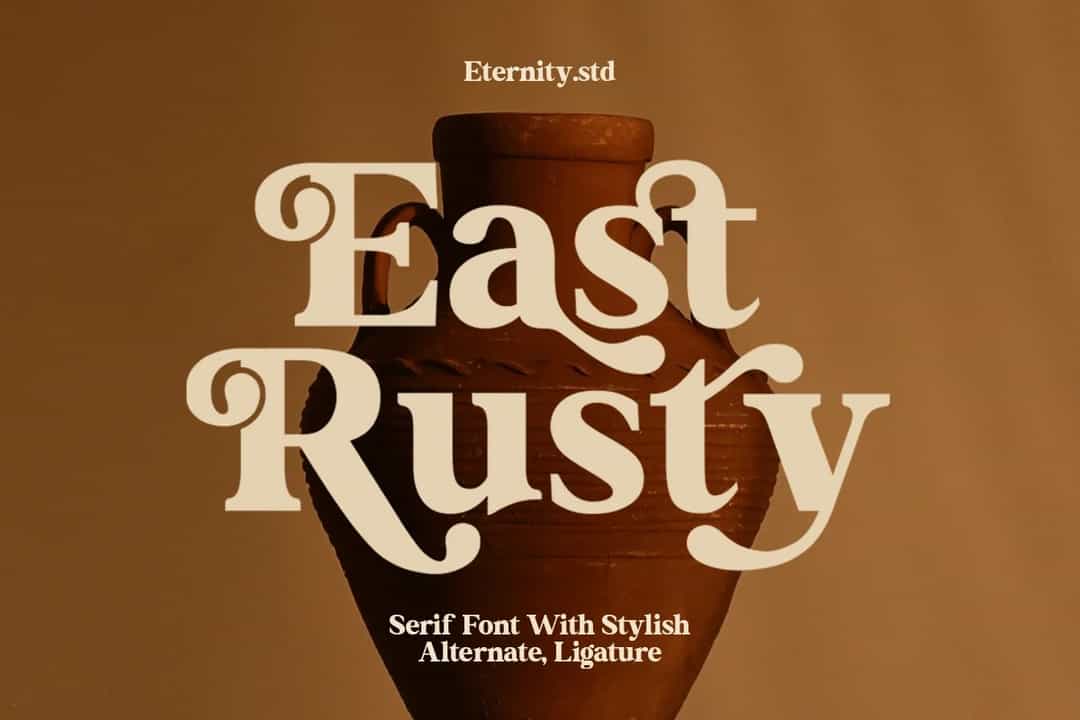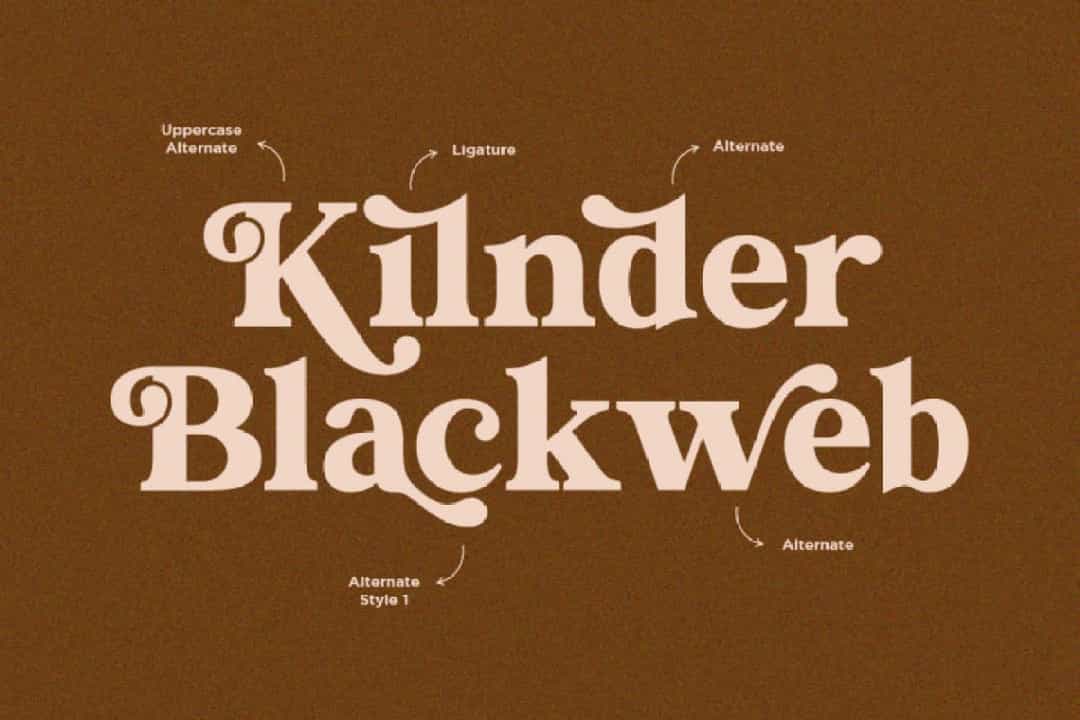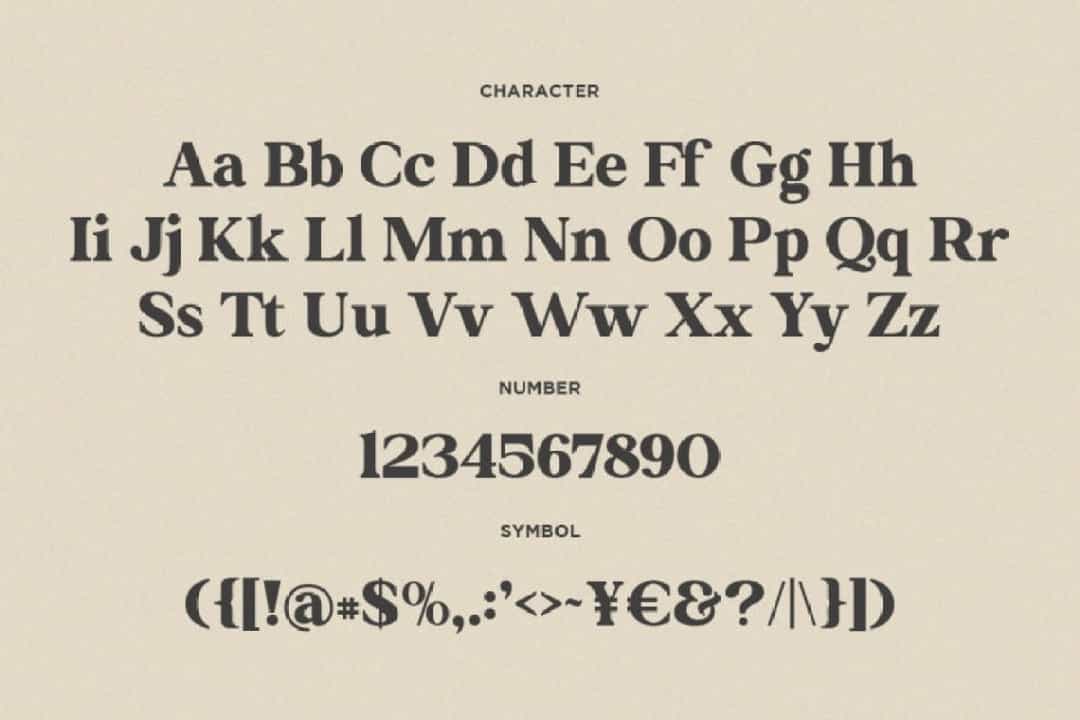
East Rusty is a retro serif font style. It’s about styling your designs to be of 80-90s with the retro look. Its clean alternates and beautiful ligatures make East Rusty suitable for any graphic design project. This font is perfect for any project; whether you are working on a logo, a poster, or even a beautiful website.